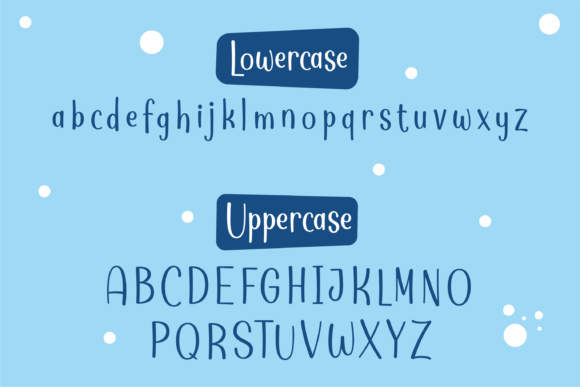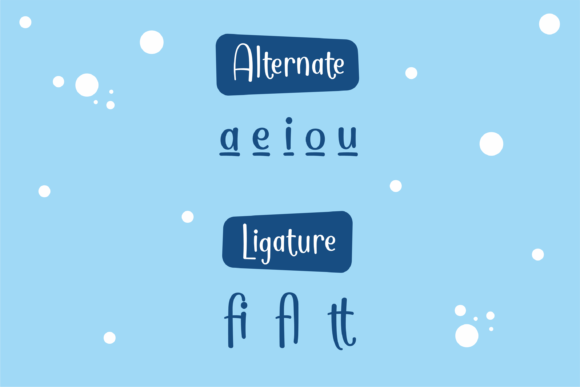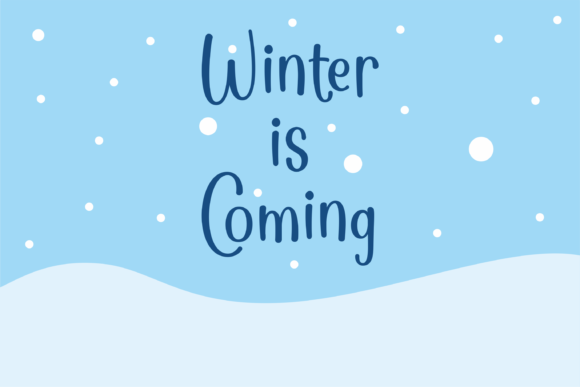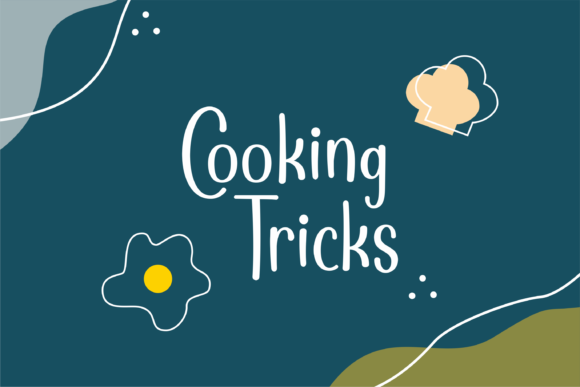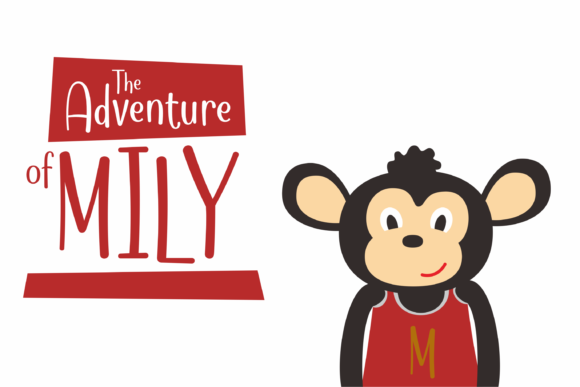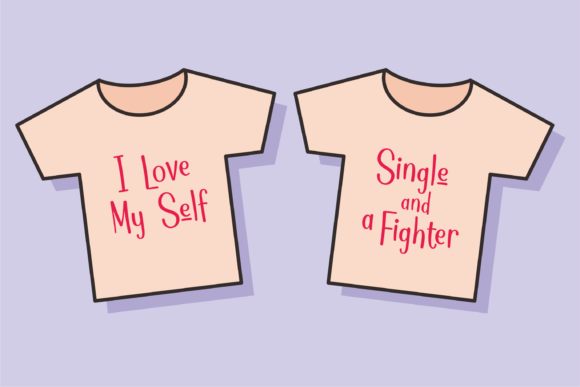
Cuttie Font: The Sweetest Handwritten Font for Your Creative Projects
Are you a designer, crafter, or DIY enthusiast looking for a font that can add a touch of sweetness and simplicity to your projects? Look no further than Cuttie Font! This charming handwritten font is perfect for a wide range of creative endeavors, from quotes and greeting cards to invitation cards, children’s books, and more.
What is Cuttie Font?
Cuttie Font is a simple and incredibly sweet handwritten font that is sure to capture the hearts of designers and crafters alike. Its delicate and whimsical design makes it an ideal choice for projects that require a personal touch. Whether you’re creating a custom greeting card, a children’s book, or a social media graphic, Cuttie Font is the perfect addition to make your design stand out.
Features of Cuttie Font
Cuttie Font boasts a range of features that make it an excellent choice for designers and crafters. Some of its key features include:
- Simple and Sweet Design: Cuttie Font has a delicate and whimsical design that is sure to add a touch of sweetness to your projects.
- Handwritten Style: This font has a handwritten style that gives it a personal and unique touch.
- Versatile: Cuttie Font is perfect for a wide range of projects, from quotes and greeting cards to invitation cards, children’s books, and more.
- Easy to Read: The font is easy to read, making it perfect for projects that require a clear and concise message.
Uses of Cuttie Font
Cuttie Font is a versatile font that can be used for a wide range of projects. Here are some ideas to get you started:
- Quotes: Use Cuttie Font to create inspiring and motivational quotes that will resonate with your audience.
- Greeting Cards: Add a personal touch to your greeting cards with Cuttie Font, perfect for birthdays, weddings, and other special occasions.
- Invitation Cards: Create beautiful and elegant invitation cards for parties, weddings, and other events with Cuttie Font.
- Children’s Books: Cuttie Font is perfect for children’s books, adding a touch of whimsy and fun to your story.
- Social Media Graphics: Use Cuttie Font to create eye-catching social media graphics that will stand out from the crowd.
Why Choose Cuttie Font?
So, why choose Cuttie Font for your creative projects? Here are just a few reasons:
- Unique and Personal Touch: Cuttie Font adds a unique and personal touch to your projects, making them stand out from the crowd.
- High-Quality Design: Cuttie Font has a high-quality design that is sure to impress your audience.
| Font Name | Cuttie Font |
| Author | Toko Laris Djaja |
In conclusion, Cuttie Font is a simple and incredibly sweet handwritten font that is perfect for a wide range of creative projects. Its delicate and whimsical design makes it an ideal choice for designers and crafters who want to add a personal touch to their work. With its versatility, ease of use, and high-quality design, Cuttie Font is a must-have for anyone looking to create beautiful and eye-catching projects. So, why not give Cuttie Font a try today and see how it can make your creative ideas stand out!